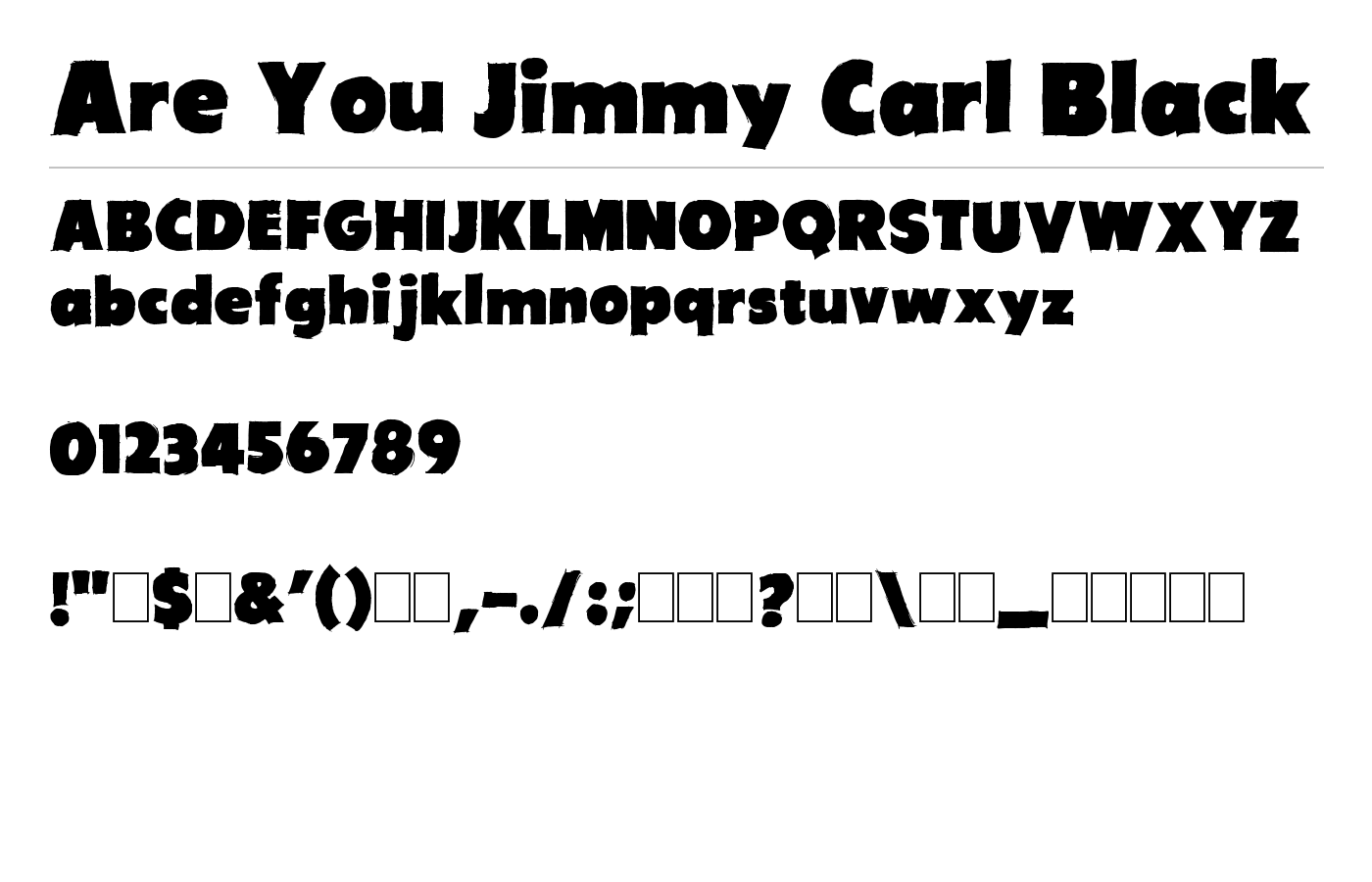
Are You Jimmy Carl Black is a bold, black weight sans serif font with a playful, hand-painted texture that adds character and charm. Its wide, chunky letterforms with slightly irregular edges create a casual, friendly vibe, making it ideal for eye-catching headlines, posters, and creative branding where a unique, informal style is desired. This font works especially well for fun, energetic projects that want a strong but approachable personality.
Are You Jimmy Carl Black Font
About Are You Jimmy Carl Black Font
| Font family | Are You Jimmy Carl Black Font |
| Designer | IMAGEX |